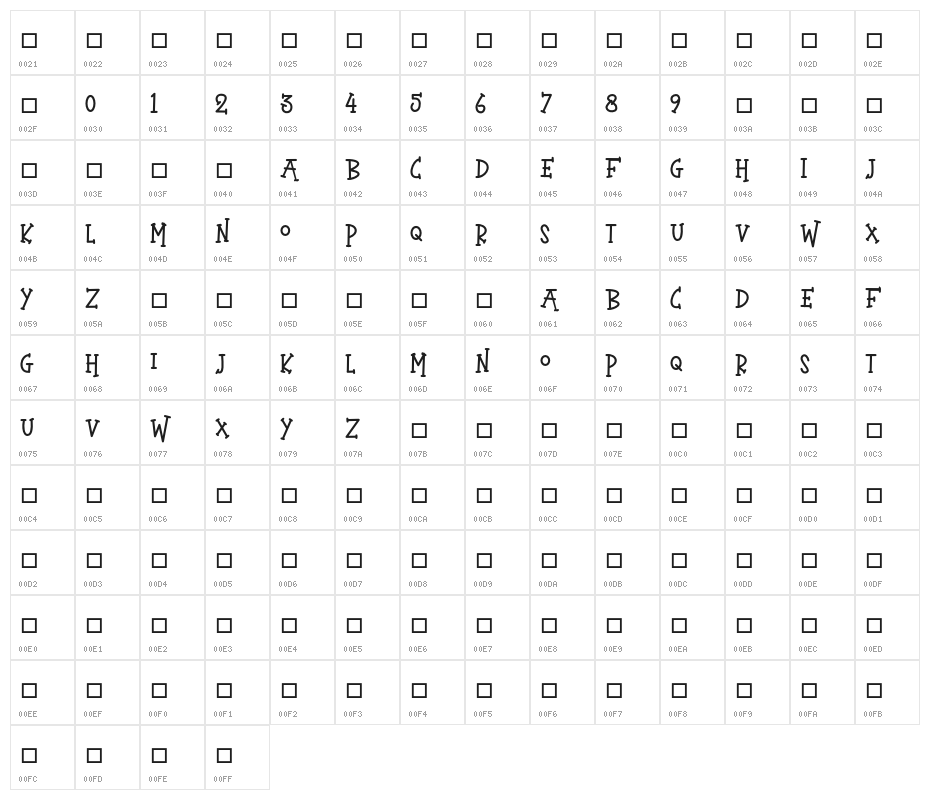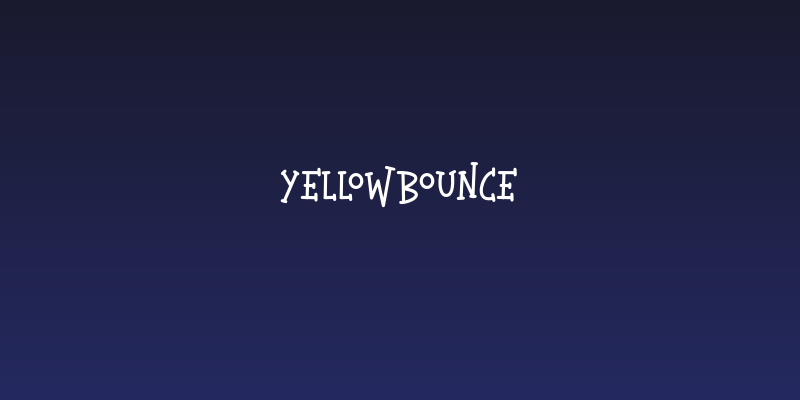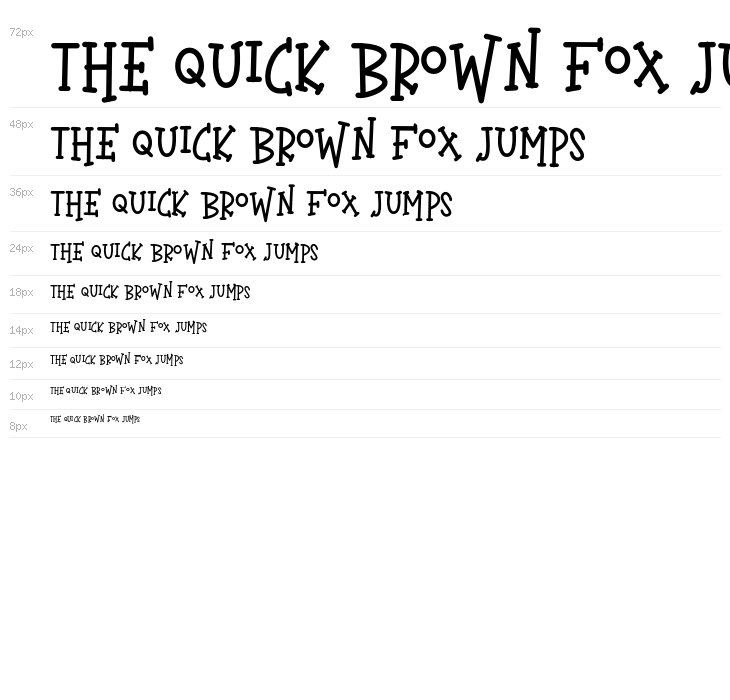
YELLOWBOUNCE Font
YELLOWBOUNCE Description
This playful and whimsical font features a unique, hand-drawn style with exaggerated serifs and a slightly uneven baseline, giving it a lively and dynamic appearance. The characters are bold and rounded, with a friendly and approachable feel. The uppercase and lowercase letters maintain a consistent style, with the numbers and special characters following suit. The font's distinctive character makes it ideal for projects that require a touch of fun and creativity. Its bold strokes and quirky design elements make it stand out, while still being legible and versatile for various applications.
| Overall Style | Whimsical |
| Proposed Projects | Ideal for children's books, playful branding, posters, and creative invitations. |